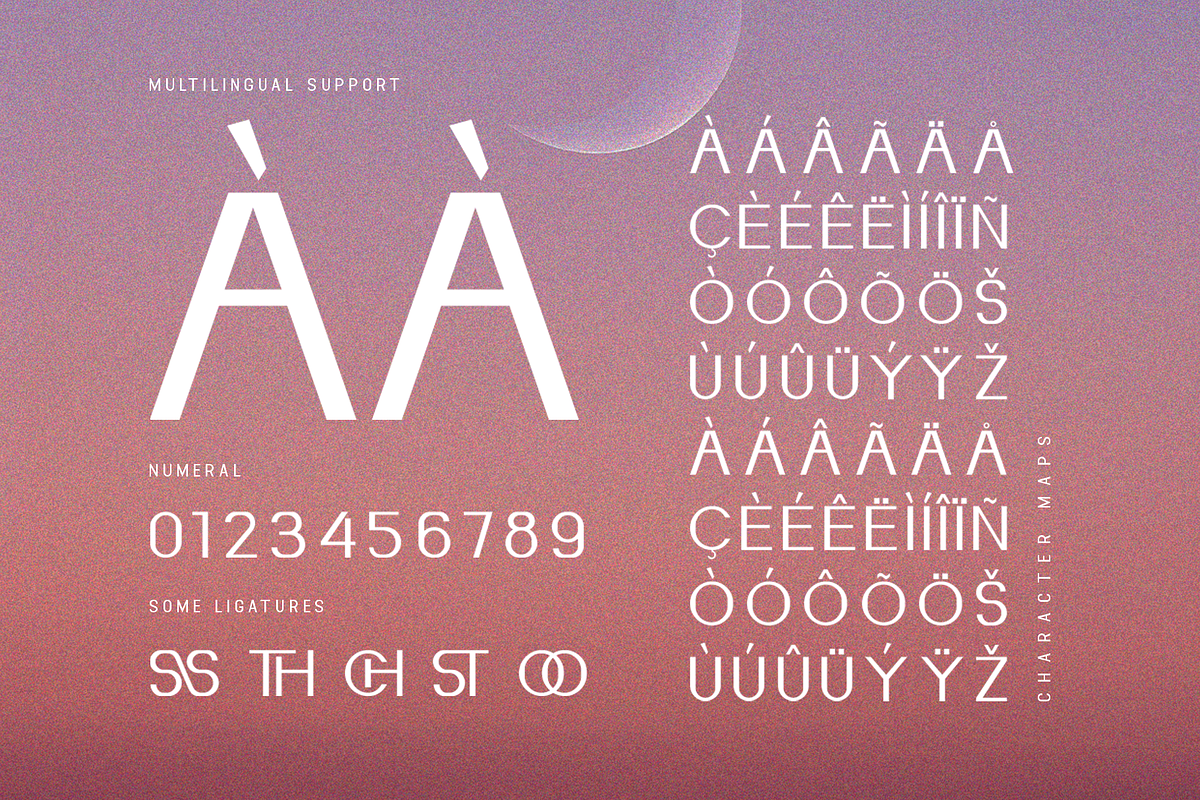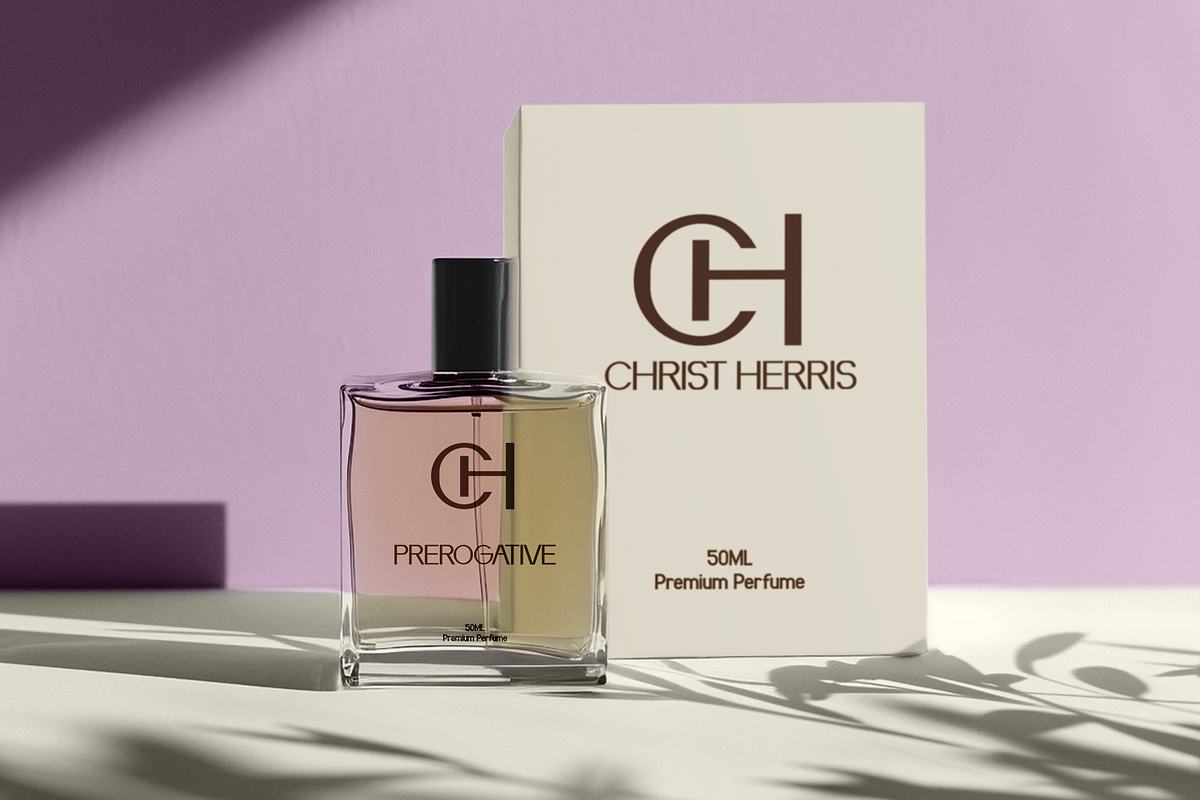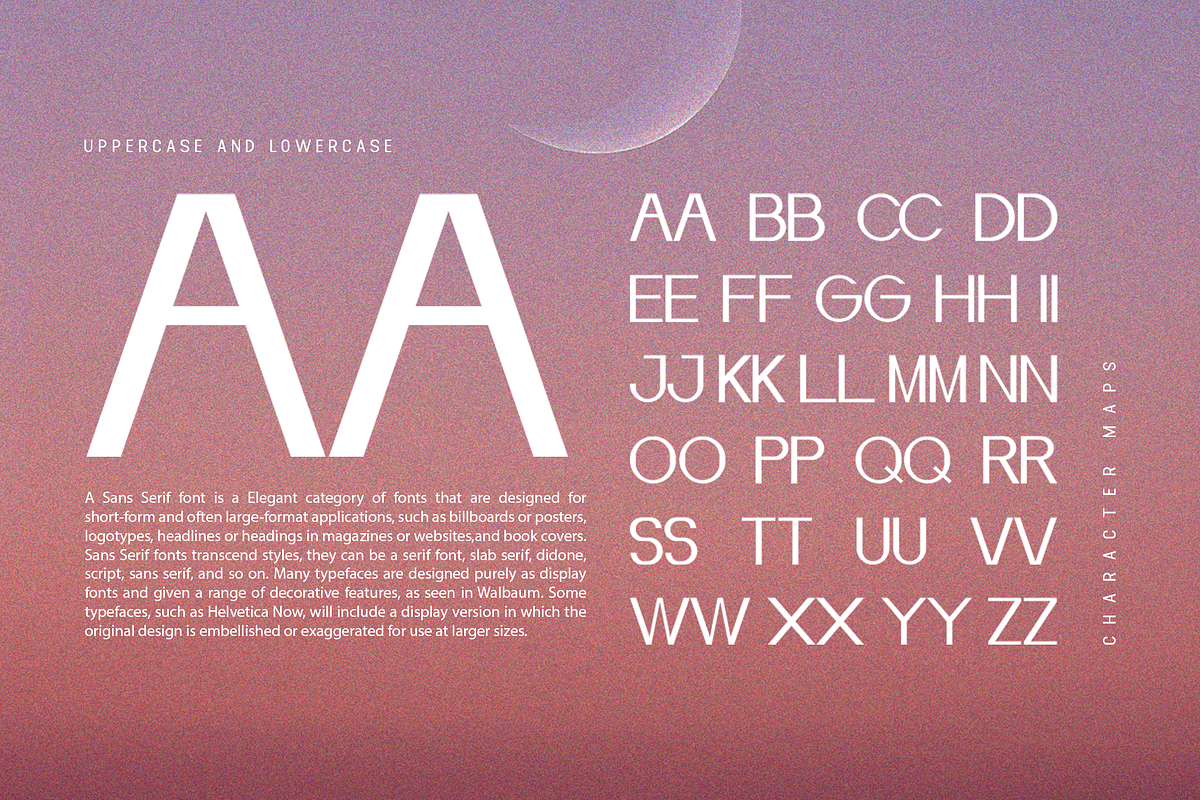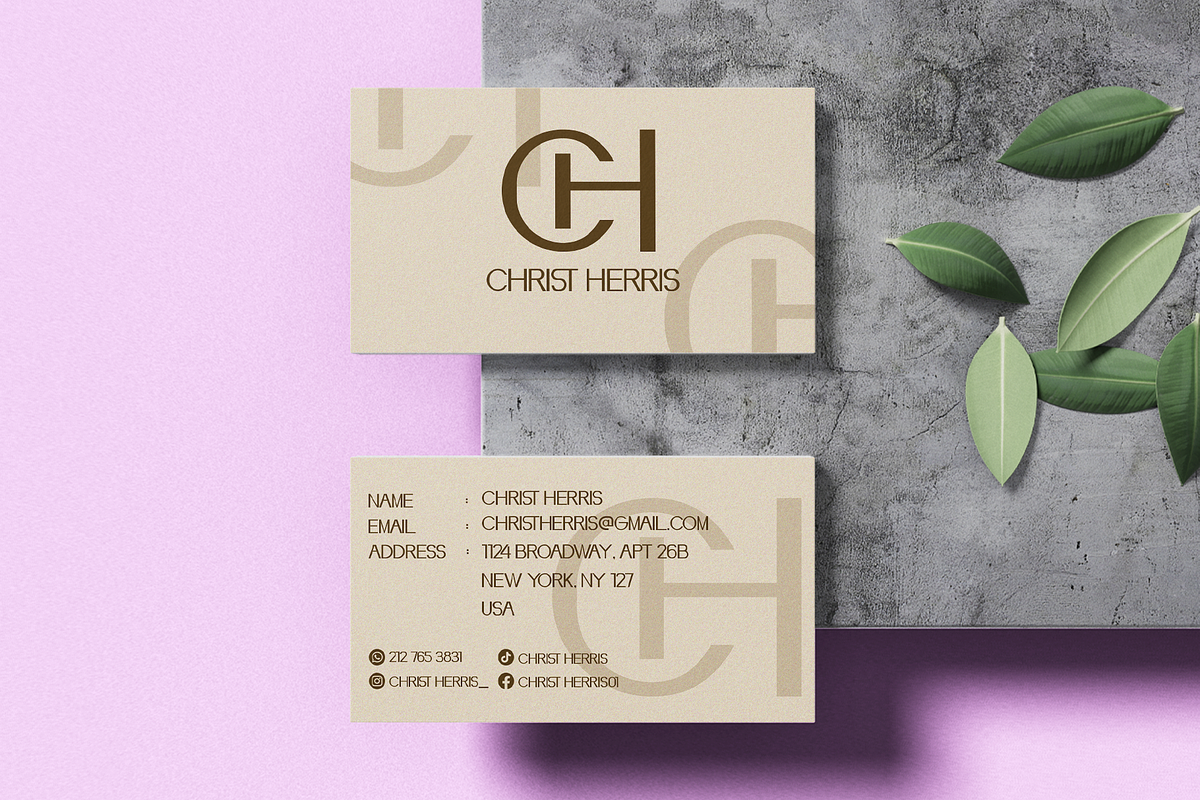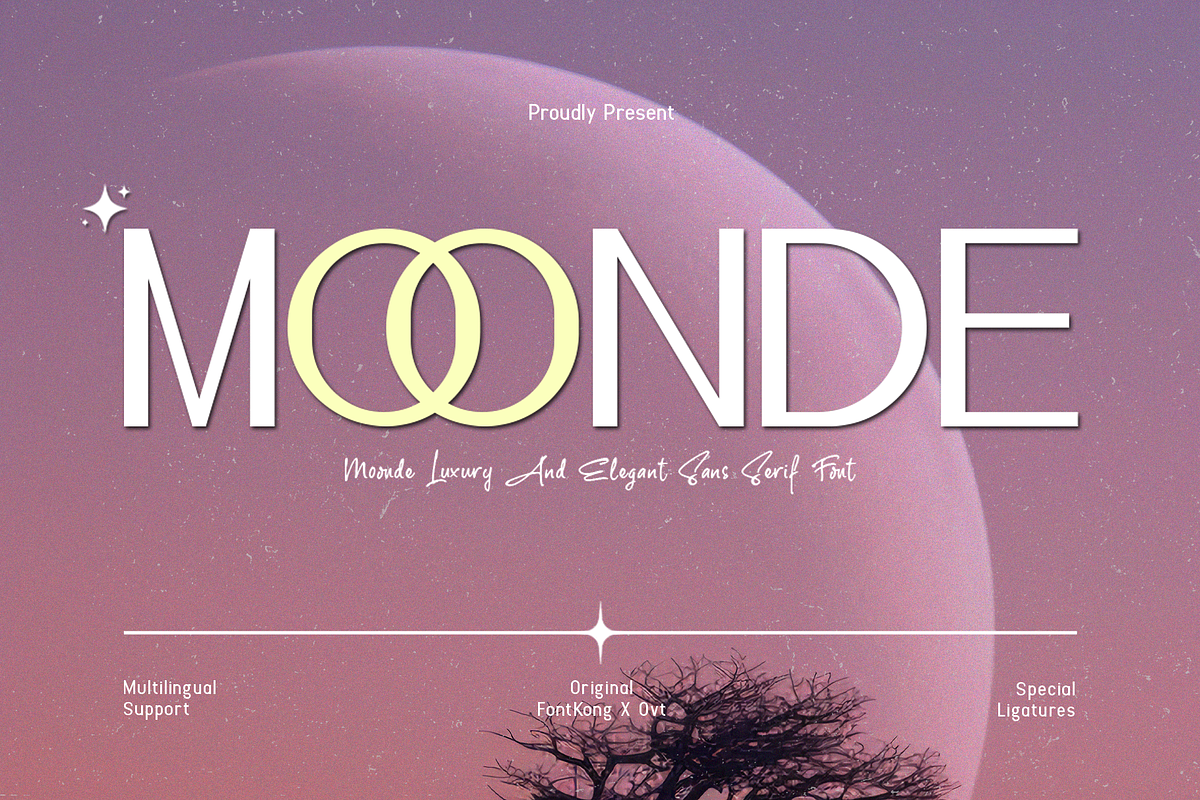
Moonde – Luxury & Elegant Sans Serif
Moonde – A Luxury and Elegant Sans Serif Font
Moonde is a refined and luxurious sans serif font that exudes elegance and sophistication. With its sleek lines, balanced proportions, and minimalist aesthetic, this typeface is perfect for upscale branding, high-end packaging, fashion editorials, invitations, logos, and more. Moonde adds a timeless charm to your designs, making them feel modern, stylish, and effortlessly classy.
Crafted to perfection, Moonde strikes a balance between simplicity and opulence. Its clean letterforms and subtle curves ensure readability while maintaining a distinct visual identity. Whether you are designing for fashion, luxury products, or corporate branding, this font will give your projects an exclusive edge.
Elevate your designs with Moonde, a typeface that speaks of elegance and prestige. Perfect for both digital and print media, this font enhances any project with a touch of grandeur and modernity.